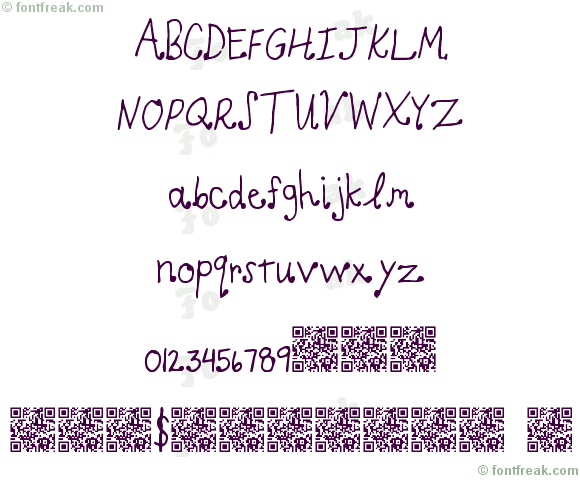
LightCurls
LightCurls, created by XEROGRAPHER FONTS in 2013, is a whimsical script font that embodies a playful yet elegant aesthetic. This font features a light stroke weight with gentle curves that flow into each other, creating a sense of movement and fluidity. The contrast between thick and thin lines adds a charming dynamic, making it visually engaging. The spacing is generous, allowing for easy readability while maintaining its decorative flair. The playful loops and curls in the letters further enhance its unique character, making it an ideal choice for a range of creative applications.
Best suited for wedding invitations, LightCurls adds a touch of romance and sophistication, making it perfect for special occasions. It also works wonderfully for greeting cards and personal stationery, where a friendly, inviting tone is desired. For small businesses, this font can elevate restaurant menus, giving them a warm and welcoming vibe that draws customers in. Additionally, it’s a fantastic choice for social media graphics, where content creators can use it to capture attention and convey a cheerful message.
What sets the LightCurls font apart is its ability to balance playfulness with elegance, making it versatile enough for both casual and formal applications. By incorporating this font into your design toolkit, you can achieve a distinctive look that stands out in any context. For those interested, the LightCurls font free download is readily available, inviting you to explore its delightful possibilities.